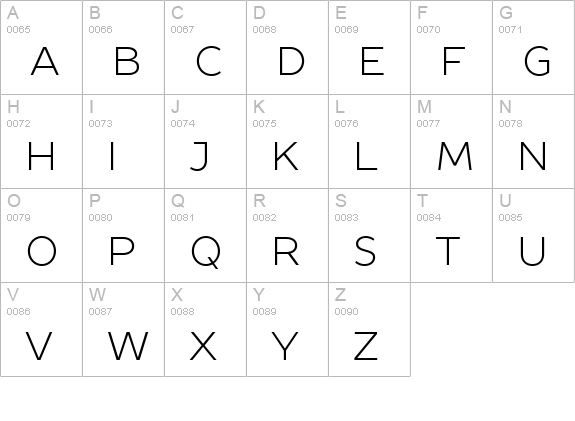
TT Prosto Sans Light is a refined, elegant variant in the TT typeface family \xE2\x80\x94 well suited to elegant body text, refined sub-headings, and luxury branding.
TT Prosto Sans Light is a modern and elegant typeface that exudes simplicity and sophistication. With its clean lines and balanced proportions, this font is perfect for a wide range of design projects, from branding and packaging to editorial and web design. The light weight of TT Prosto Sans Light adds a touch of delicacy and refinement to any text, making it ideal for conveying a sense of modernity and minimalism. What's even better is that TT Prosto Sans Light is available for free download at FontsMarket.com. This means that you can easily access this stylish and versatile font for your creative endeavors without any cost. Don't miss out on the opportunity to enhance your designs with the timeless beauty of TT Prosto Sans Light – download it today and elevate your projects to the next level.